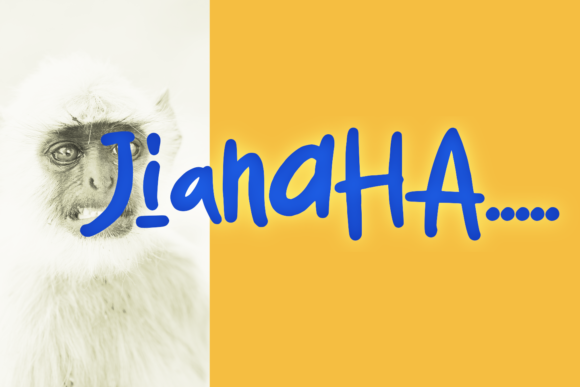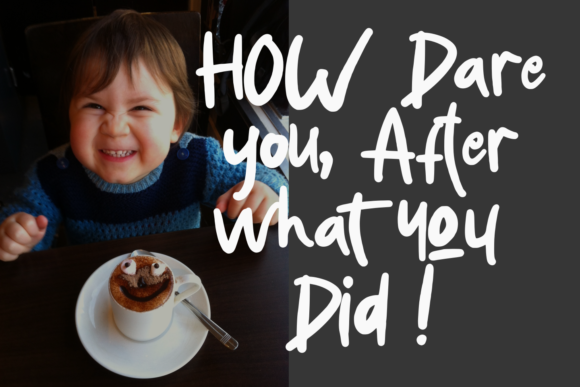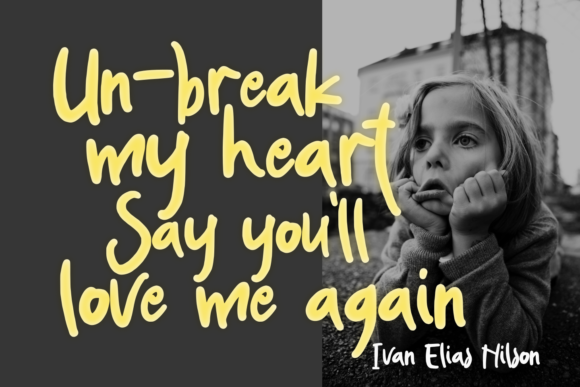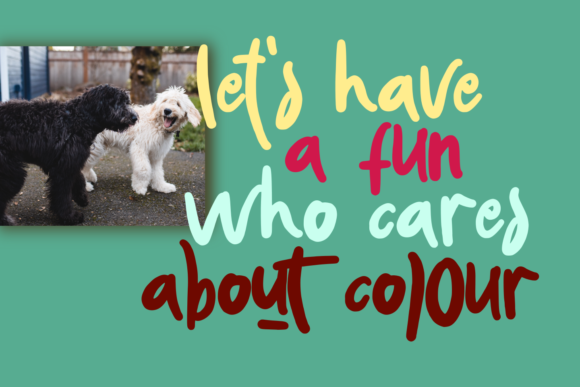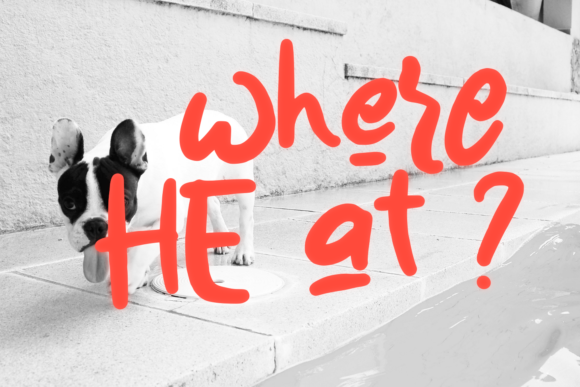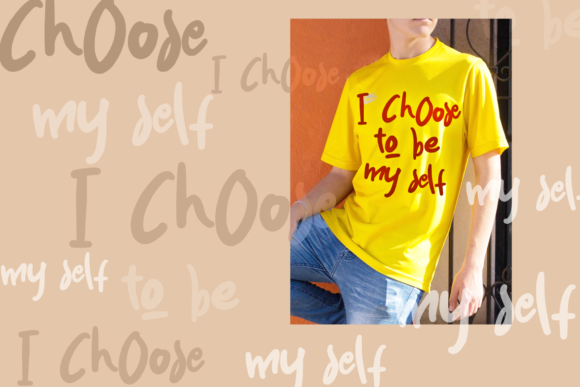
Akwokwok Font: The Cute and Playful Choice for Your Design Projects
Akwokwok is a delightful font that has captured the hearts of designers and crafters alike. This adorable and playful font is perfectly suited for a wide variety of projects, from creative crafts to digital designs. In this article, we’ll dive into the wonderful world of Akwokwok font and explore its features, uses, and benefits.
The Charm of Akwokwok Font
Akwokwok font is a unique and charming typeface that exudes playfulness and whimsy. Its cute and endearing design makes it an excellent choice for projects that require a touch of personality and fun. Whether you’re working on a DIY craft project, creating digital content, or designing a brand identity, Akwokwok font is sure to bring a smile to your face and add a dash of excitement to your work.
Features of Akwokwok Font
Akwokwok font boasts several features that make it a versatile and practical choice for designers and crafters. Some of its notable features include:
- Playful Design: Akwokwok font has a playful and carefree design that’s perfect for projects that require a lighthearted touch.
- High Readability: Despite its playful design, Akwokwok font is highly readable, making it suitable for both digital and print projects.
- Flexibility: Akwokwok font can be used for a wide range of projects, from titles and headings to body text and captions.
- Easy to Pair: Akwokwok font pairs well with other fonts, making it easy to create harmonious and visually appealing typography combinations.
Uses of Akwokwok Font
Akwokwok font is an incredibly versatile typeface that can be used for a wide variety of projects, including:
- DIY Crafts: Akwokwok font is perfect for DIY craft projects, such as making cards, gift tags, and other handmade items.
- Digital Designs: Akwokwok font can be used for digital designs, such as social media graphics, blog posts, and website headers.
- Branding and Identity: Akwokwok font can be used to create a playful and memorable brand identity for businesses and organizations.
- Educational Materials: Akwokwok font can be used to create engaging and interactive educational materials, such as worksheets, activity sheets, and presentation slides.
Benefits of Using Akwokwok Font
Using Akwokwok font offers several benefits, including:
- Unique and Memorable: Akwokwok font helps create unique and memorable designs that stand out from the crowd.
- Time-Saving: Akwokwok font saves time and effort, as it’s easy to use and doesn’t require extensive design expertise.
- Fun and Engaging: Akwokwok font adds a touch of fun and playfulness to designs, making them more engaging and enjoyable to interact with.
In conclusion, Akwokwok font is a delightful and versatile typeface that’s perfect for designers and crafters looking to add a touch of playfulness and whimsy to their projects. With its cute and endearing design, high readability, and flexibility, Akwokwok font is an excellent choice for a wide range of projects. Whether you’re working on a DIY craft project, creating digital content, or designing a brand identity, Akwokwok font is sure to bring a smile to your face and help you create unique and memorable designs.